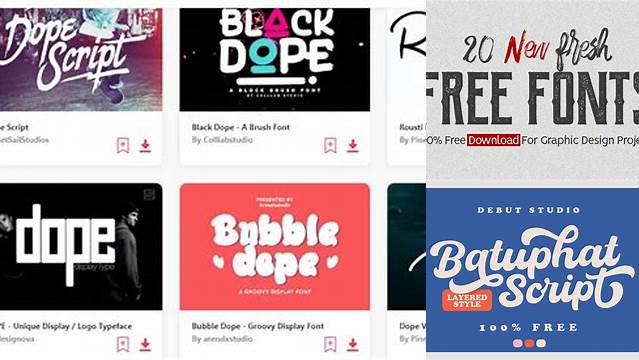
Unique Fonts: Free Downloads For Creative Designs
Hey guys! Are you on the hunt for some dope, unique fonts to spice up your design projects? Look no further! In today's digital age, typography plays a crucial role in capturing attention and conveying the right message. A well-chosen font can elevate your designs, making them stand out from the crowd. Whether you're working on a website, logo, poster, or any other creative endeavor, having access to a diverse collection of fonts is essential. Luckily, there are tons of amazing resources out there where you can download unique and eye-catching fonts for free. This article will guide you through the world of free fonts, highlighting where to find them, how to choose the right ones, and how to use them effectively. We'll explore different font styles, from elegant serifs to modern sans-serifs and playful display fonts, ensuring you have a font for every occasion. So, letβs dive in and discover some dope fonts that will transform your designs!
Why Unique Fonts Matter
Unique fonts are more than just pretty letters; they are powerful tools that can significantly impact the overall look and feel of your project. Think about it β the font you choose is one of the first things your audience will notice, and it sets the tone for your entire design. A generic, overused font can make your work look bland and uninspired, while a distinctive font can instantly grab attention and communicate your brand's personality. In a world saturated with visual content, standing out is crucial, and using unique typography is a fantastic way to achieve this. For example, imagine you're designing a logo for a trendy coffee shop. A classic serif font might convey a sense of tradition and elegance, while a bold, sans-serif font could project a more modern and edgy vibe. Or perhaps you need a playful script font for a children's book cover. The possibilities are endless! By selecting unique fonts, you can create designs that are not only visually appealing but also effectively communicate your message and brand identity. Moreover, using unconventional typefaces can help you differentiate yourself from competitors, making your projects more memorable and impactful. So, whether you're a seasoned designer or just starting out, investing time in finding the right fonts is a worthwhile endeavor. Trust me, guys, the right font can make all the difference.
Where to Find Free and Dope Fonts
Finding dope, unique fonts for free might sound too good to be true, but there are actually several fantastic resources available online. Let's explore some of the best places to discover your next favorite typeface. First up, we have Google Fonts, a massive library of open-source fonts that are completely free to use for personal and commercial projects. Google Fonts is a treasure trove of high-quality typefaces, ranging from classic serifs and sans-serifs to more unconventional display fonts. The best part? They're incredibly easy to access and integrate into your website or design software. Next, we have websites like DaFont and FontSpace, which offer a vast selection of user-submitted fonts. While the quality can vary, these sites are goldmines for finding unique and quirky fonts that you won't find anywhere else. Just be sure to check the licensing terms before using a font in a commercial project. Another great resource is Font Squirrel, which specializes in free fonts that are licensed for commercial use. They curate a collection of high-quality typefaces, making it easier to find fonts that are both dope and legally safe to use. Don't forget about Creative Market's free goods section, where you can often find fonts offered for free for a limited time. Subscribing to newsletters from font foundries and design blogs can also keep you in the loop about free font releases and special offers. With a little bit of digging, you'll be amazed at the sheer number of amazing fonts you can find without spending a dime. So, go ahead and explore these resources β you might just stumble upon your next favorite typeface!
Tips for Choosing the Right Unique Font
Choosing the right unique font can feel like a daunting task, especially with so many options available. But don't worry, guys, I'm here to help! Here are some tips to guide you in selecting the perfect typeface for your project. First and foremost, consider your project's purpose and target audience. What message are you trying to convey? Who are you trying to reach? A playful, whimsical font might be perfect for a children's birthday invitation, but it wouldn't be suitable for a professional business report. Similarly, a sleek, modern sans-serif font might work well for a tech company's website, while a classic serif font could be a better fit for a luxury brand's logo. Think about the overall tone and style you want to achieve and choose a font that aligns with that. Next, pay attention to readability. A dope font is useless if it's difficult to read. Make sure the font is legible at various sizes and in different contexts. Avoid overly decorative or intricate fonts for body text, as they can strain the eyes. Instead, opt for clean and clear typefaces that are easy to read at a glance. Experiment with different font pairings. Combining different font styles can add visual interest and create a more dynamic design. A common approach is to pair a serif font with a sans-serif font, using one for headings and the other for body text. However, it's essential to ensure that the fonts complement each other and don't clash. Use font pairing tools and resources to help you find harmonious combinations. Finally, don't be afraid to experiment! Try out different fonts and see what works best for your project. The more you explore, the better you'll become at recognizing unique and effective typefaces. So, have fun and let your creativity shine!
How to Use Your New Fonts Effectively
Okay, guys, you've found some dope, unique fonts β now what? It's not enough to simply download a font; you need to know how to use it effectively to create stunning designs. Here are some tips to help you make the most of your new typefaces. Firstly, think about hierarchy. Typography can be used to create a visual hierarchy, guiding the reader's eye through your design. Use different font sizes, weights, and styles to emphasize important elements, such as headings, subheadings, and call-to-actions. A larger, bolder font for headings will draw attention, while a smaller, lighter font can be used for body text. Consistency is key. While experimenting with different fonts is encouraged, it's essential to maintain consistency within your design. Stick to a limited number of fonts β usually no more than two or three β to avoid creating a cluttered and confusing look. Use the same fonts consistently throughout your project to create a cohesive and professional feel. Pay attention to spacing and kerning. The spacing between letters and lines can significantly impact readability. Adjust the kerning (the space between individual letters) and leading (the space between lines) to ensure that your text is easy to read. Proper spacing can make a font look more elegant and polished. Consider the context. The way you use a font can also depend on the medium you're designing for. A font that looks great on a website might not work well in print, and vice versa. Think about the size, resolution, and color palette of your project and choose fonts that are appropriate for the context. Finally, don't be afraid to break the rules! While these tips provide a solid foundation, the best way to learn is by experimenting and developing your own style. Try out different techniques and see what works best for you. With practice and creativity, you'll be able to use your unique fonts to create truly eye-catching designs.
So there you have it, guys! A comprehensive guide to finding and using dope, unique fonts for free. Typography is a powerful design element, and choosing the right font can make all the difference in your projects. By exploring the various resources available, considering your project's purpose, and experimenting with different techniques, you can create designs that are both visually appealing and highly effective. Remember, a unique font can help you stand out from the crowd, communicate your message clearly, and establish your brand identity. Whether you're designing a website, logo, or poster, don't underestimate the importance of typography. Take the time to find fonts that inspire you and that align with your creative vision. With a little bit of effort, you'll be amazed at the impact a great font can have on your work. So go ahead, download some new fonts, and let your creativity soar! Happy designing!